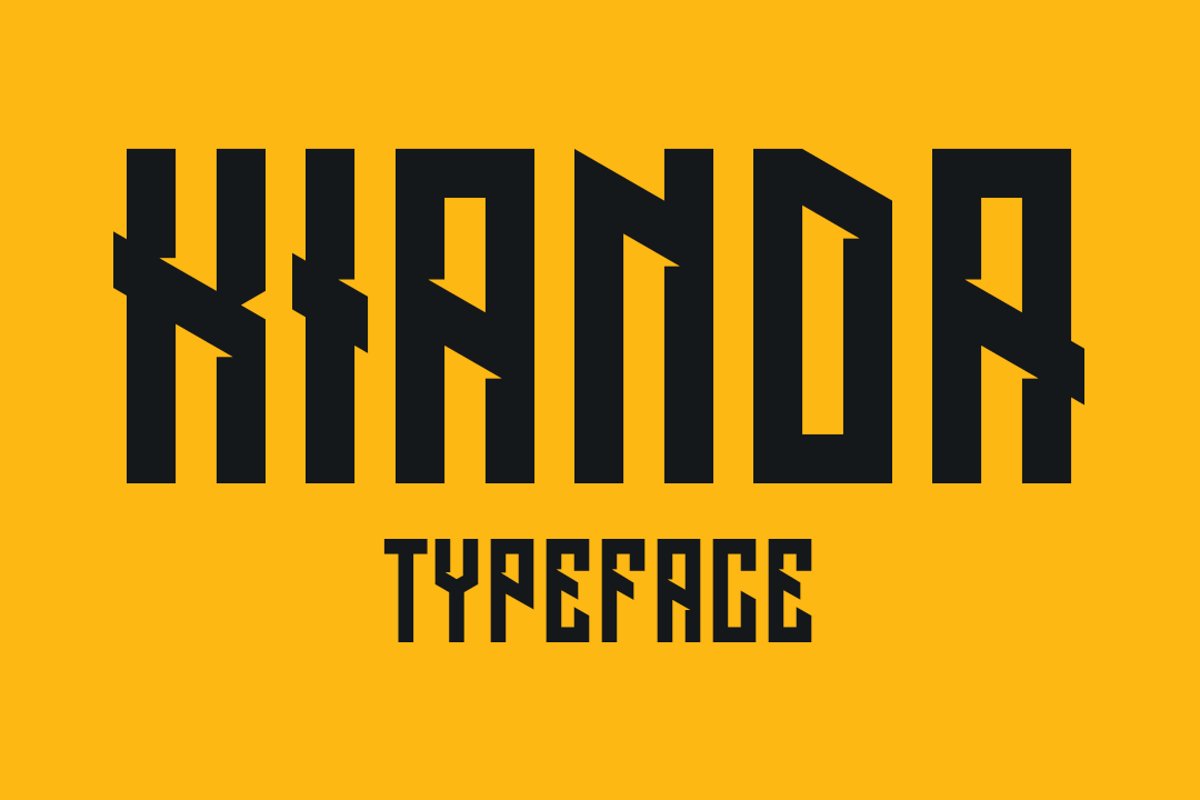
Kianda
Kianda typeface was created as a non-classic, sport logo typeface. Now
it has only one style with Latin and Cyrillic uppercase, numerals and
punctuation. Almost every letter have 3-4 alternates, which allows you
to feature stylish text for your logo. Also this typeface works good
with short slogans, packaging and more.